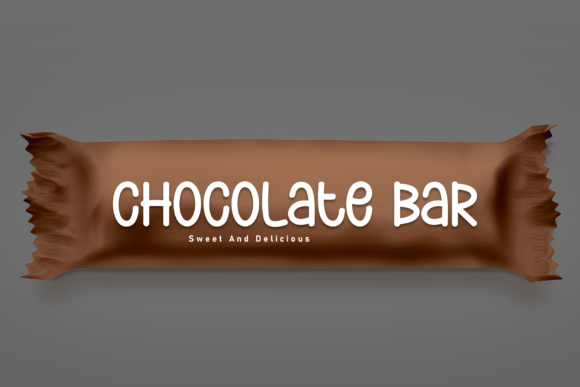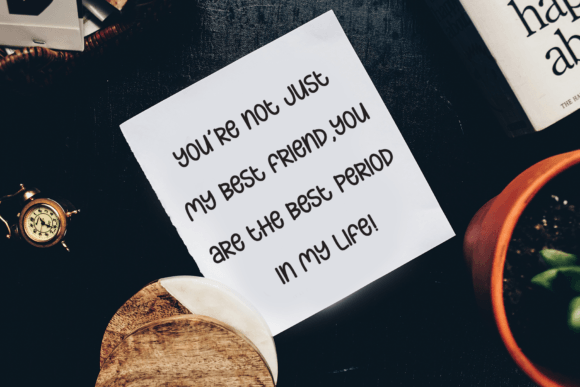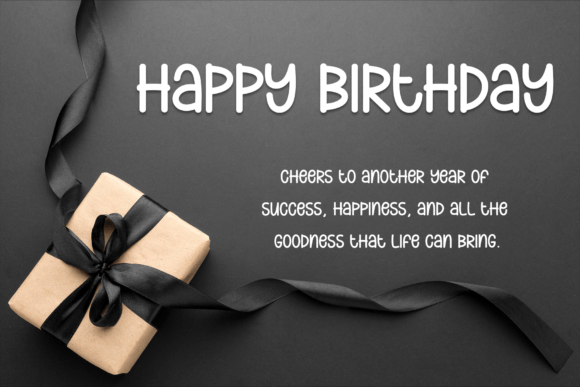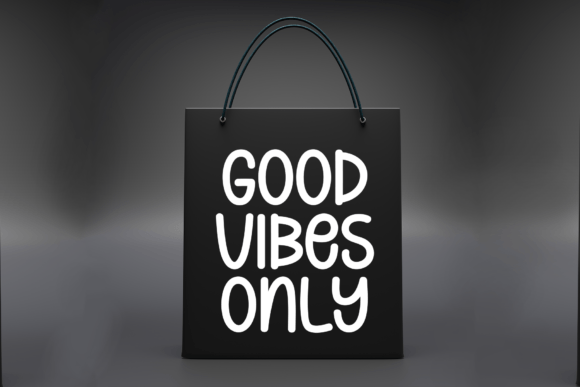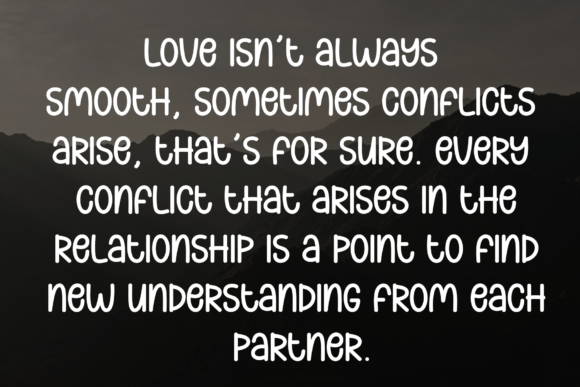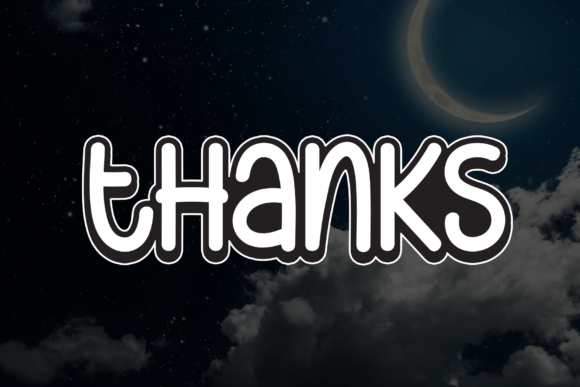
Introducing Good Night Font: The Sweet and Friendly Handwritten Font for Your Design Needs
Are you a designer or crafter looking for a font that can add a touch of warmth and personality to your designs? Look no further than Good Night Font, a sweet and friendly handwritten font that’s perfect for a variety of projects. In this article, we’ll take a closer look at Good Night Font, its features, and how you can use it to elevate your designs.
What is Good Night Font?
Goodnight is a beautiful, handwritten font that’s designed to bring a smile to your face. It’s a cute and fun font that’s ideal for writing wedding invitations, cards, or any other design that might need a fun touch. With its playful and approachable vibe, Good Night Font is sure to capture the hearts of your audience and make your designs stand out.
Key Features of Good Night Font
So, what makes Good Night Font so special? Here are some of its key features:
- Handwritten style: Good Night Font has a beautiful, handwritten style that’s perfect for adding a personal touch to your designs.
- Cute and fun: This font is designed to be playful and fun, making it ideal for projects that require a lighthearted touch.
- Versatile: Good Night Font can be used for a variety of projects, from wedding invitations and cards to social media graphics and more.
- Easy to read: Despite its playful style, Good Night Font is easy to read, making it perfect for body text and headlines.
How to Use Good Night Font in Your Designs
Now that we’ve covered the features of Good Night Font, let’s talk about how you can use it in your designs. Here are some ideas to get you started:
- Wedding invitations: Good Night Font is perfect for wedding invitations, as it adds a touch of romance and whimsy to your design.
- Cards and stationery: This font is also great for creating cards and stationery, such as birthday cards, thank-you cards, and more.
- Social media graphics: Good Night Font can add a fun and playful touch to your social media graphics, such as Instagram posts and Facebook graphics.
- Branding and packaging: If you’re looking for a font that can add a personal touch to your branding and packaging, Good Night Font is a great choice.
Tips for Using Good Night Font Effectively
To get the most out of Good Night Font, here are some tips to keep in mind:
- Use it with contrasting fonts: Pair Good Night Font with a contrasting font, such as a bold sans-serif font, to create visual interest.
- Experiment with colors: Good Night Font looks great in a variety of colors, so don’t be afraid to experiment and find the perfect hue for your design.
- Keep it simple: While Good Night Font is playful and fun, it’s still a script font. Keep your design simple and avoid over-accessorizing.
In conclusion, Good Night Font is a sweet and friendly handwritten font that’s perfect for designers and crafters looking to add a touch of warmth and personality to their designs. With its playful and approachable vibe, this font is ideal for a variety of projects, from wedding invitations and cards to social media graphics and more. By following the tips outlined in this article, you can use Good Night Font to create beautiful and effective designs that capture the hearts of your audience.